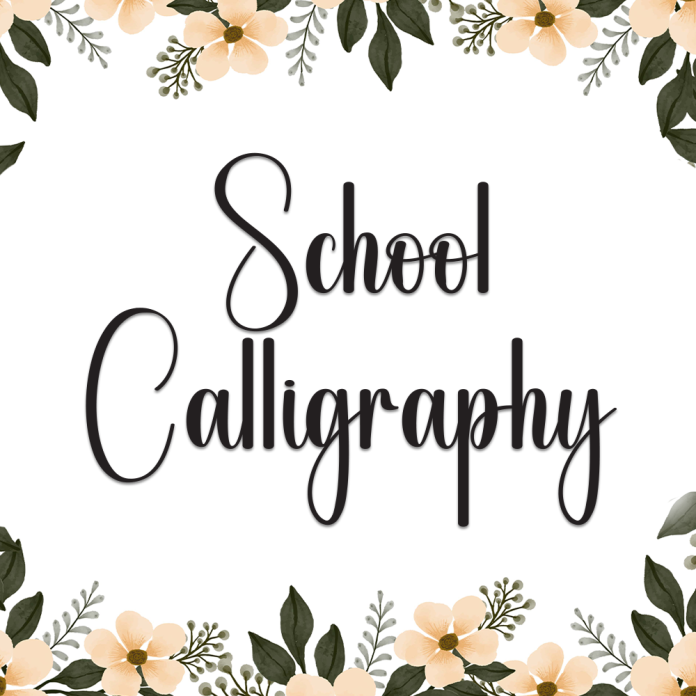
School Calligraphy is a clean and graceful handwritten font inspired by classroom cursive and timeless calligraphy. With its smooth lines and structured flow, it’s ideal for educational projects, school-themed designs, children’s books, teaching materials, and elegant journaling.
Its combination of readability and style makes it both practical and visually charming.
Uppercase & Lowercase Letters
School-Inspired Cursive Style
Easy to Read & Beautifully Crafted
Bring a touch of class and creativity to your educational or elegant projects with School Calligraphy.